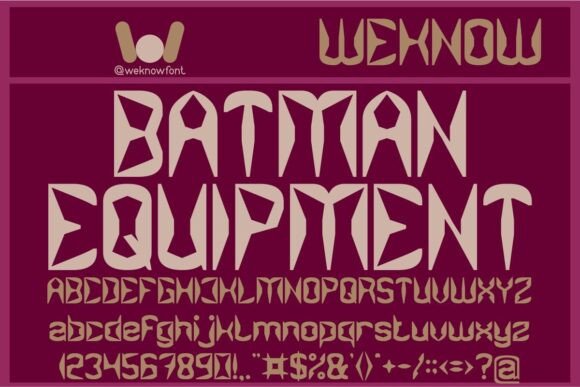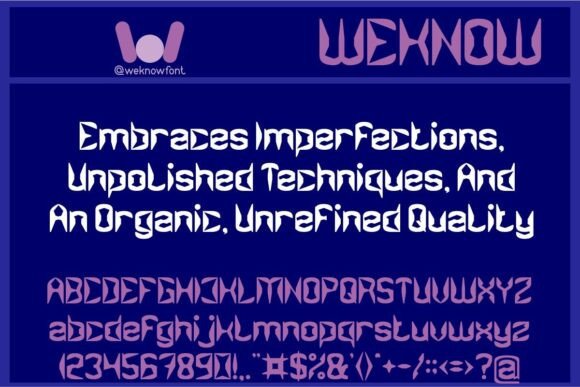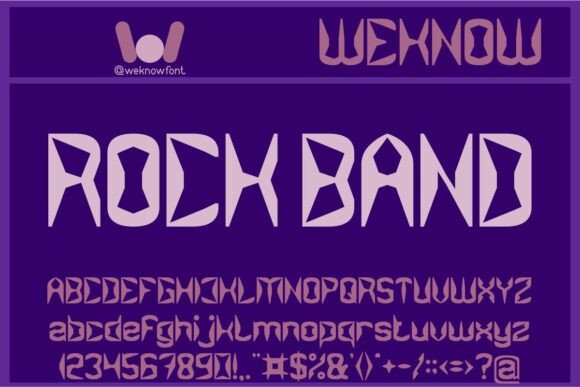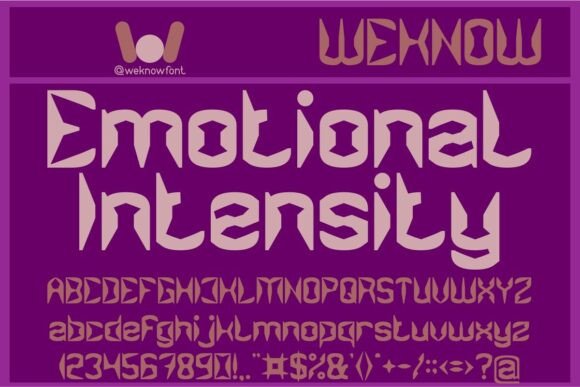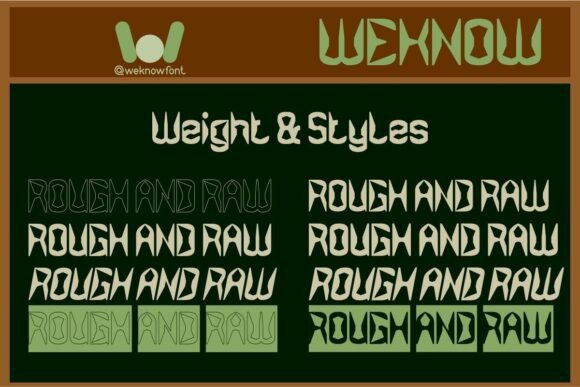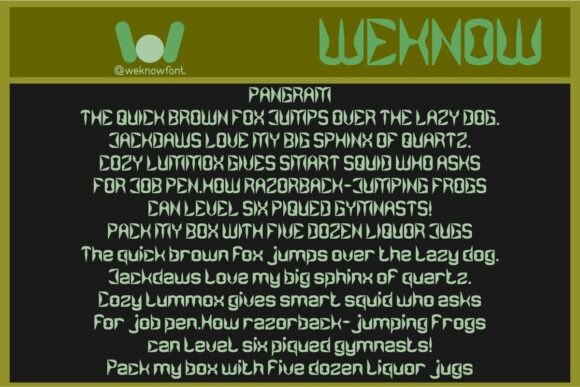
Introduction to Rough and Raw Font
Introducing “Rough and Raw,” an incredibly versatile display font that is as captivating as it is unique.
With its striking geometric structure and whimsical nuances, this font presents a bold yet playful aesthetic It’s the perfect mix of fancy and rugged and easily melds within the realms of both ninja and rock styles.
Key Features of Rough and Raw Font
Why Choose Rough and Raw Font?